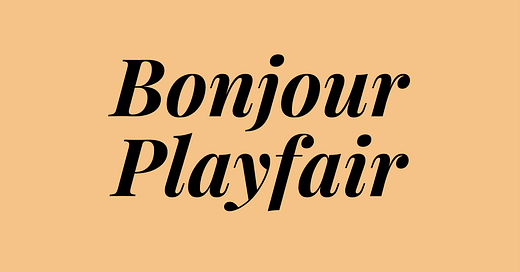
FontDiscovery 🖼️ 70: The Perfect Reading Font for Everyone?
Plus: Revisiting Playfair Display, the perfect editorial font we covered in issue no.11 & Spring Peony